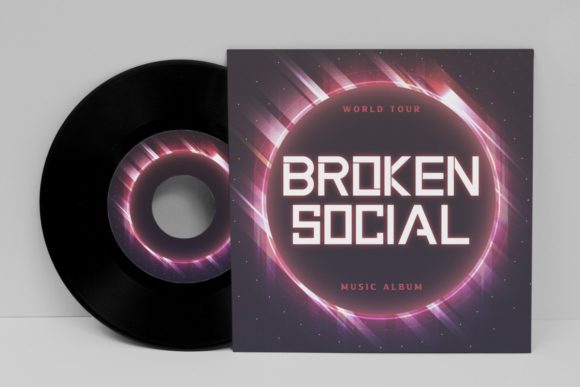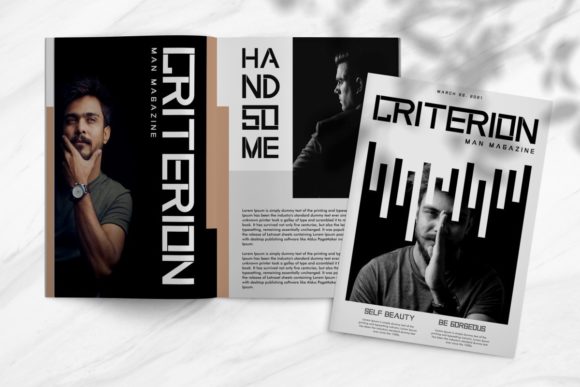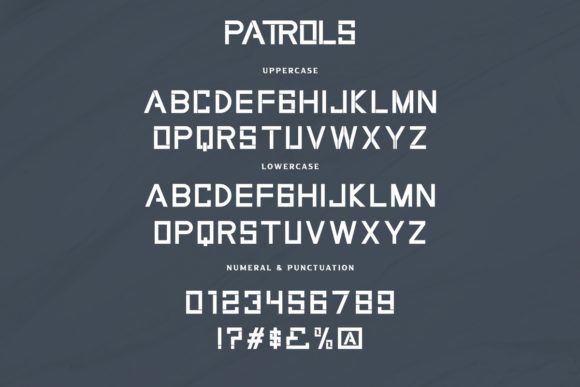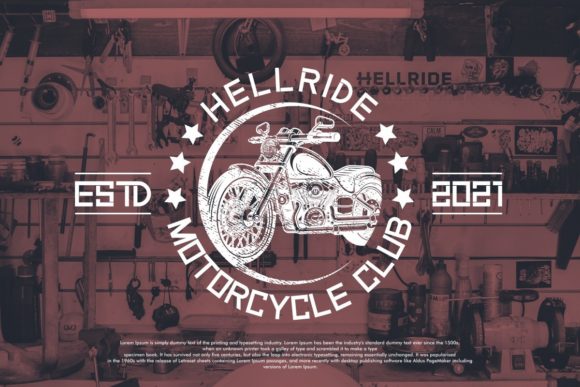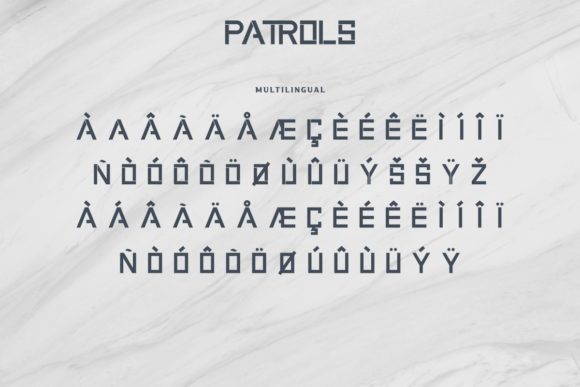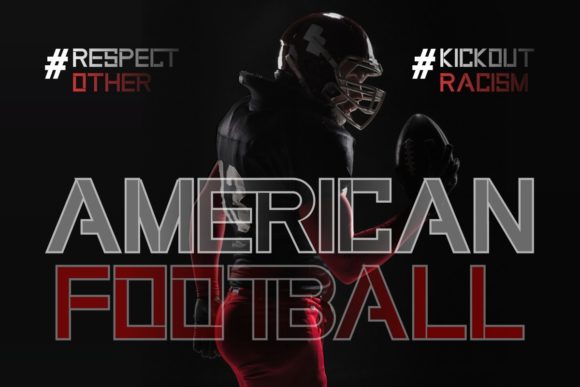
Introduction to Patrols Font
Remember that moment when you stumbled upon the perfect design resource, and everything just clicked? For designers, discovering a high-quality font can be a game-changer, elevating a creative project from ordinary to extraordinary. One such gem is the Patrols Font, a cool, bold, and robotic display font that’s sure to make a lasting impression.
With its transparent background and versatility, Patrols Font is an invaluable addition to any designer’s library. Whether you’re working on a futuristic concept, a sci-fi novel, or a cutting-edge brand identity, this font will be a wonderful asset to your design arsenal. And the best part? It’s PUA encoded, making it easy to access all the amazing glyphs and ligatures that come with it.
Key Features of Patrols Font
- High-quality design resource with a unique and modern style, ideal for creative projects
Honest Review: Patrols Font
As a designer, I’m always on the lookout for new and exciting design resources to add to my arsenal. Recently, I came across the Patrols Font, and I have to say, it’s been a game-changer for my creative projects. ✨
The Patrols Font is a high-quality, free download that offers a unique and modern aesthetic that’s perfect for any design project. One of the standout features is its transparent background, which makes it incredibly versatile and easy to use. Whether I’m working on a logo, brochure, or website, this font has been a reliable choice.
- Unique and modern aesthetic
- Transparent background for versatility
- Limitations:
- May not be suitable for all design projects (e.g. very formal or traditional designs)
- Some users may find the font too bold or overpowering
Overall, I’m thoroughly impressed with the Patrols Font. It’s a fantastic design resource that’s added a new level of creativity and sophistication to my projects. If you’re looking for a high-quality, free font with a unique twist, look no further than the Patrols Font. ⭐️
Designing with Transparency
The Patrols Font is a versatile design resource that can be used to create high-quality visuals with a transparent background. This feature makes it ideal for use in creative projects where a clean and modern aesthetic is desired.
Tips for Getting the Most Out of Patrols Font
To maximize the effectiveness of the Patrols Font, use it in combination with other design elements, such as bold colors and clean lines, to create a cohesive and visually appealing design.
The Patrols Font is suitable for a wide range of creative projects, including branding materials, social media graphics, and digital presentations.